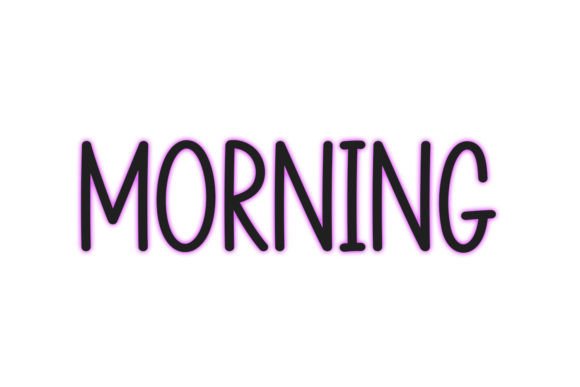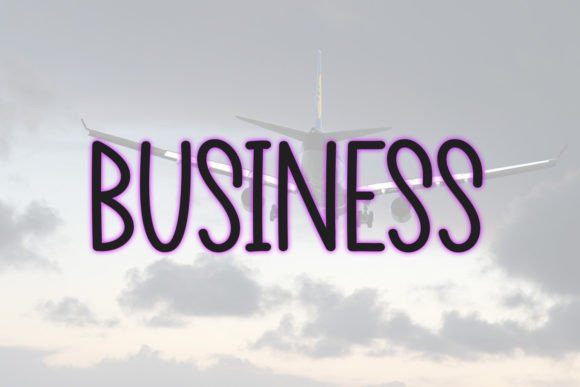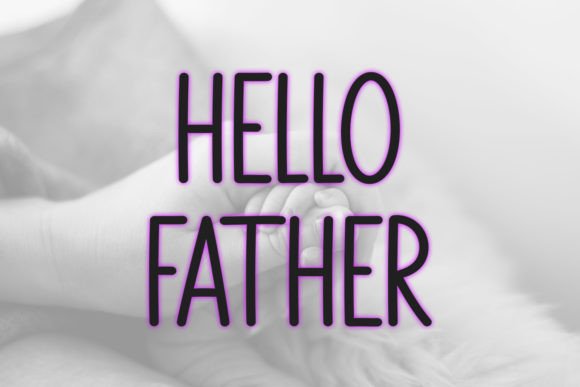
Introduction to Monolight Font Font
Fonts play a crucial role in design, and the Monolight Font font is a typeface that brings both character and versatility to any project. Whether you’re working on a branding project, a website, or a print design, the Monolight Font font offers a unique style that can elevate your work.
Moonligt is a fresh and beautiful font, good for your design purposes such as Youtube banners, cover logo mockups, wedding invitations, ID Cards, flyers, crafts and more.
Key Features of Monolight Font Font
Why Choose Monolight Font Font?
The Monolight Font font is more than just a typeface – it’s a design tool that helps you communicate your message with style and clarity. Its unique character set and versatile design make it suitable for a wide range of applications, from elegant invitations to bold headlines.
With its carefully crafted letterforms and balanced proportions, the Monolight Font font ensures readability and visual appeal across all mediums.
What makes Monolight Font font special?
The Monolight Font font stands out with its unique design, exceptional readability, and versatility across various design applications.